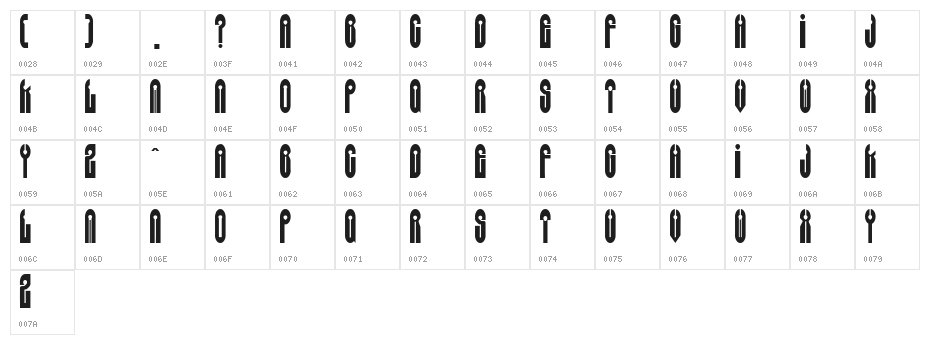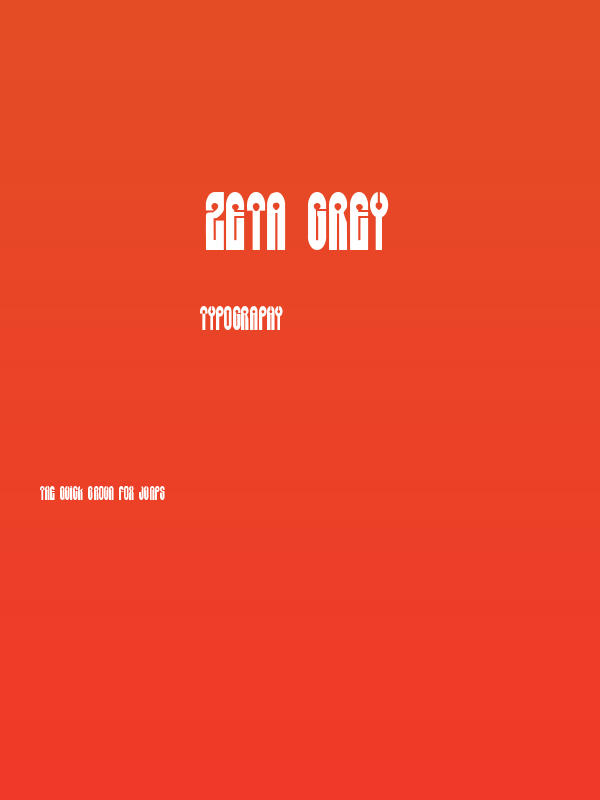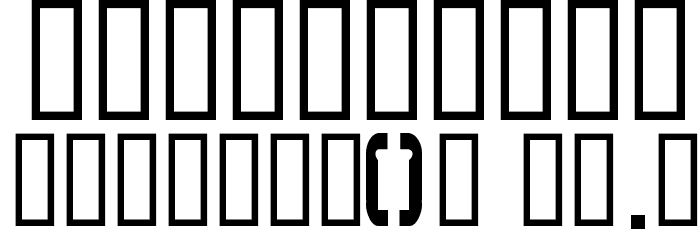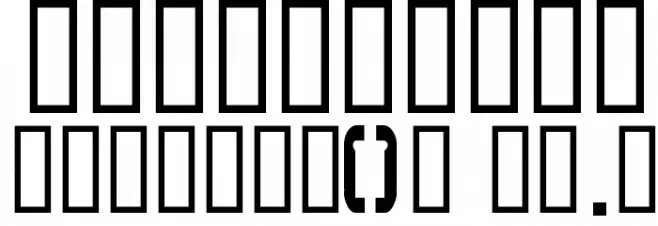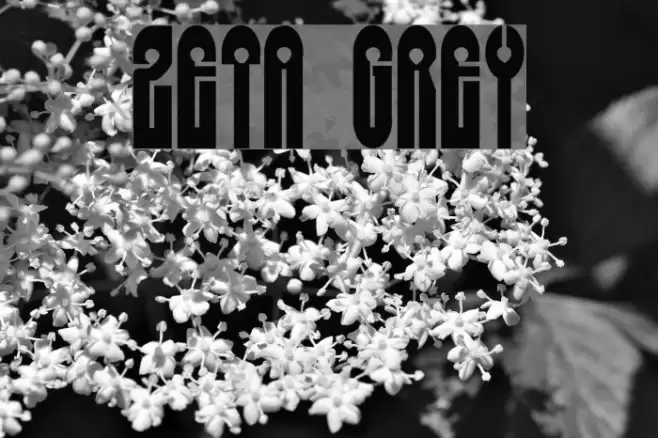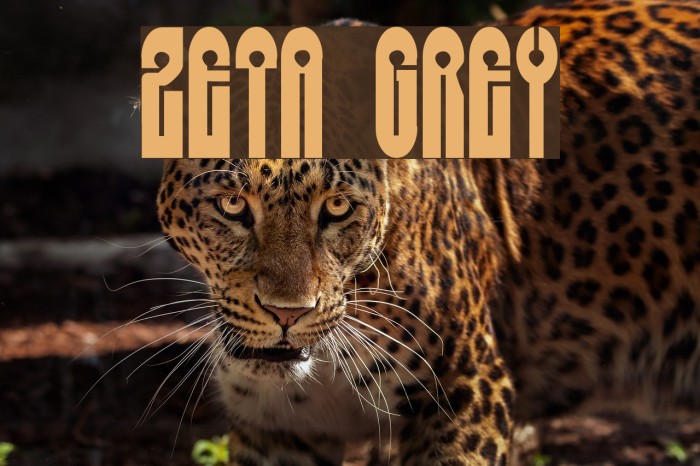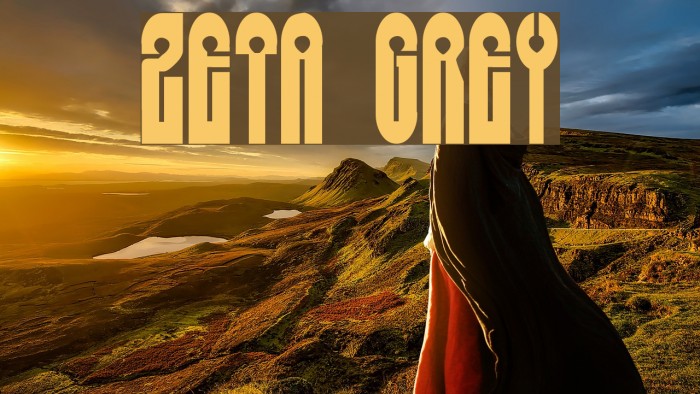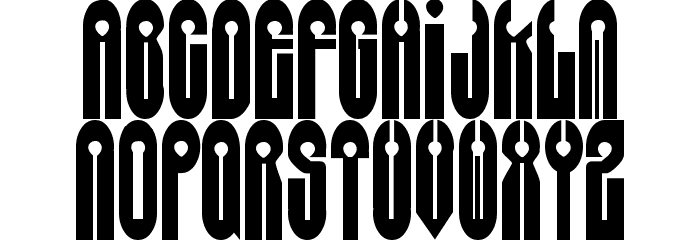
Zeta Grey Font
Zeta Grey Description
This font features a bold and striking design with a distinctly modern and geometric aesthetic. The characters are tall and narrow, with a strong vertical emphasis and minimal spacing between them, creating a compact and cohesive look. The strokes are thick and uniform, contributing to a high contrast appearance that enhances readability while maintaining a unique style. The uppercase and lowercase letters are consistent in their design, offering a seamless transition between different text cases. The overall style is both futuristic and retro, making it versatile for various creative applications.